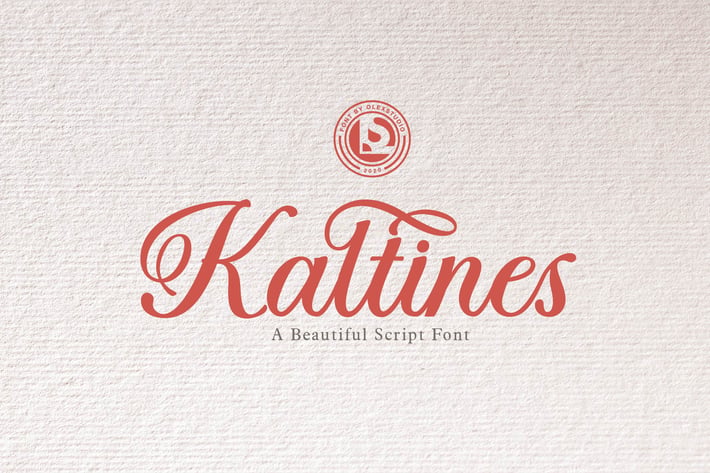
KALTINES -Script Font
KALTINES - Script is a beautiful Script Font, This Font will look gorgeous on all your designs, wedding invites, branding materials, logo's, t-shirt, poster, business cards, quotes and all project design other.
KALTINES - Script contains standard characters, lowercase, Alternates, Uppercase, numbers, punctuation, ligatures and international glyphs and character standart for a font Sans Serif. You will receive OTF, TTF files and WEB FONT.